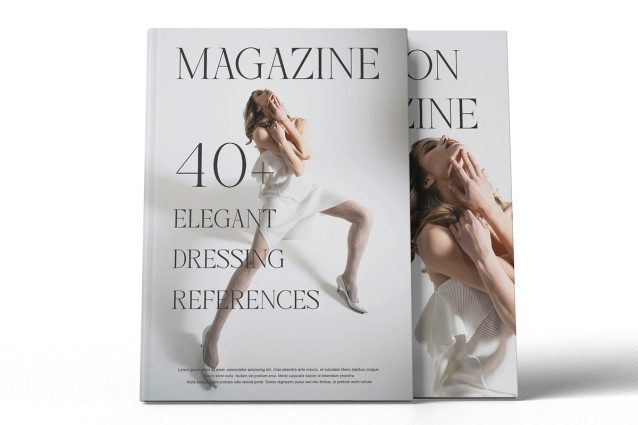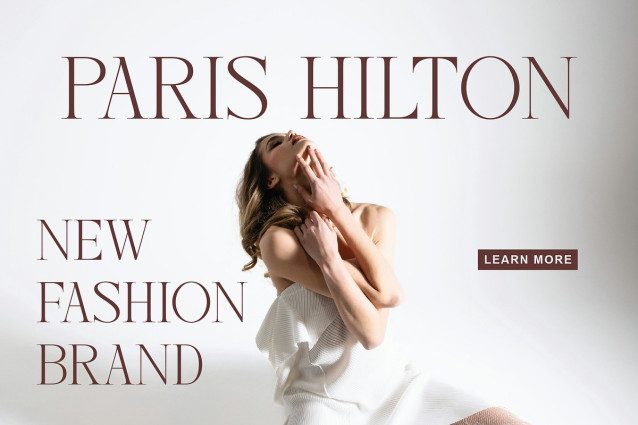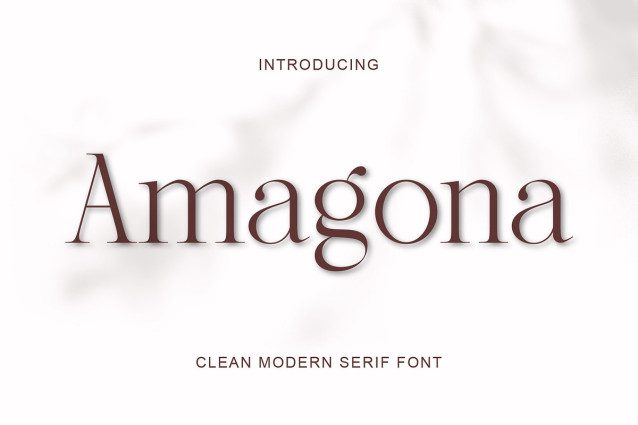
Amagona Font
Amagona Font, an elegant, sleek and modern Serif typeface. With a modern and minimalist look, Amagona brings a classy, ​​classy and clean look to your projects such as websites, modern logos, brand identities, social media quotes, wedding stationery, magazines and more!
Amagona features unique and classy uppercase letters from A to Z, along with unique alternates and ligatures, making Amagona a beautiful, customizable font for a variety of projects and jobs you want.
Amagona is perfect for: logos, branding, wedding invitations, business cards, greeting cards, posters, magazines, social media, print schedules and websites.